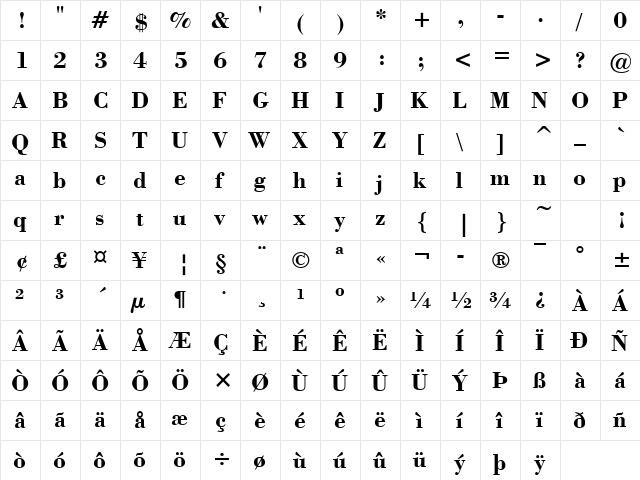
Marque Bold Font Preview
Marque Bold
Marque Bold Font Details
Design Context for Marque Typeface
Marque is a composed and adaptable typeface that performs quietly and consistently across a wide range of design contexts. Its bold stroke weight gives it real presence on the page.